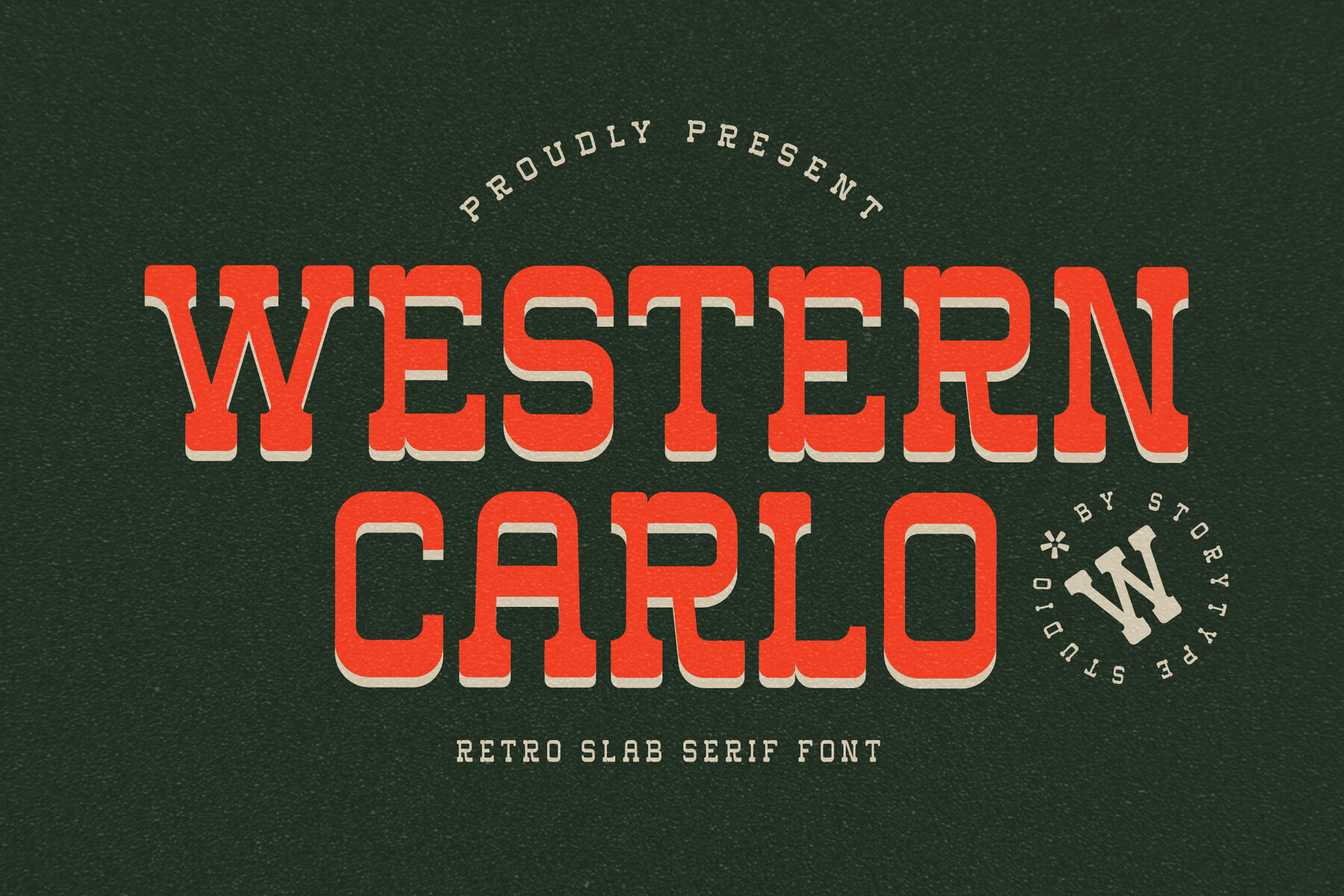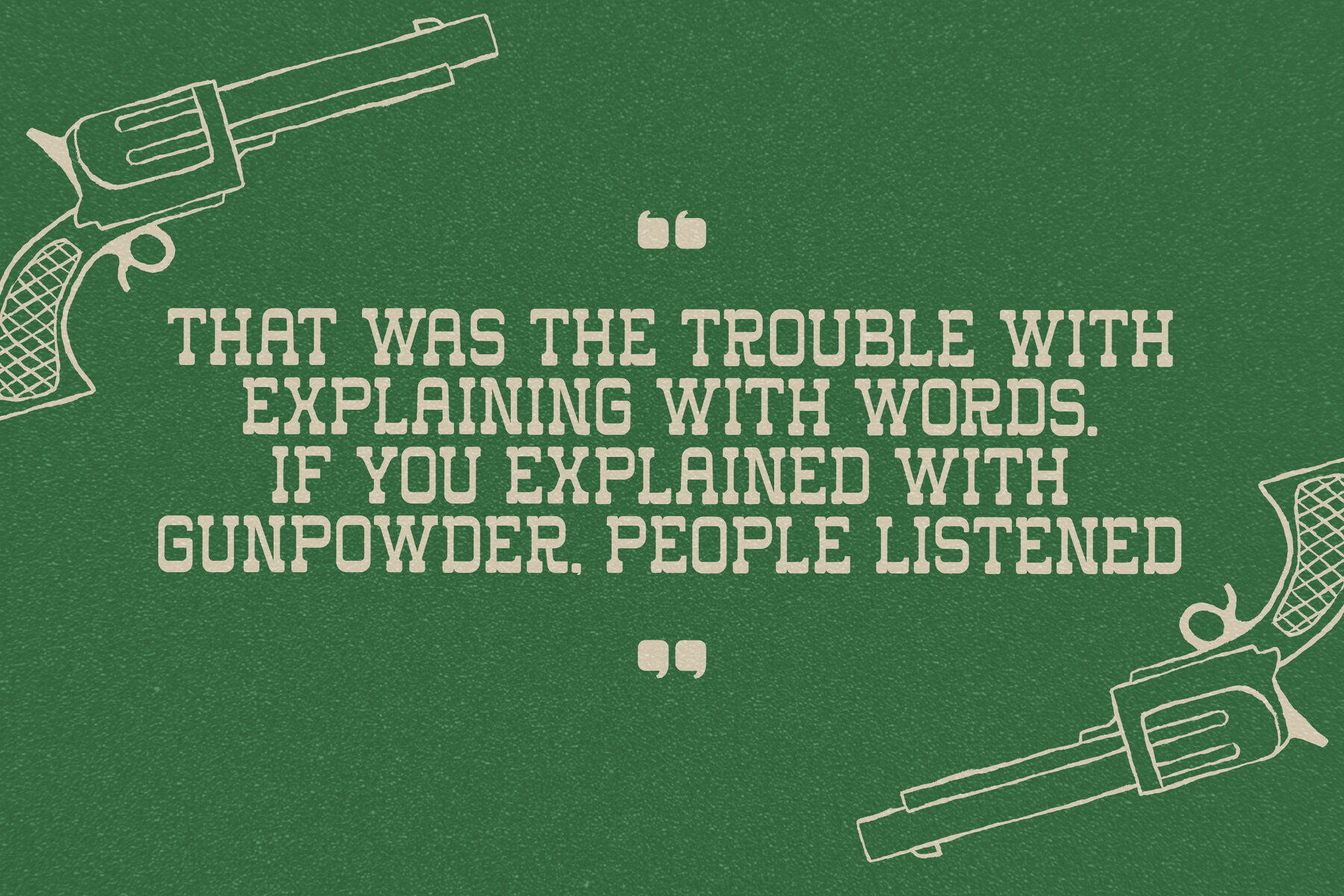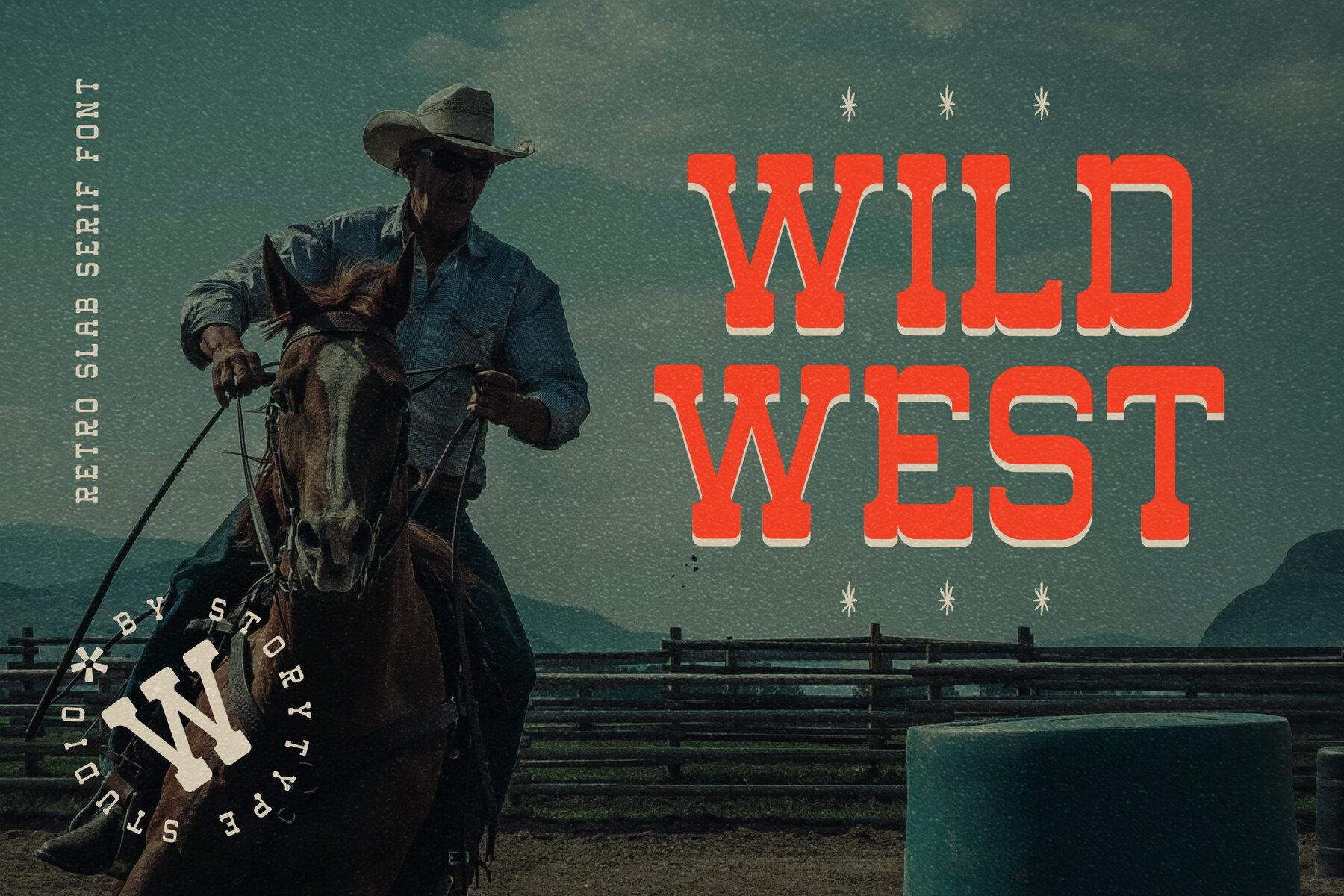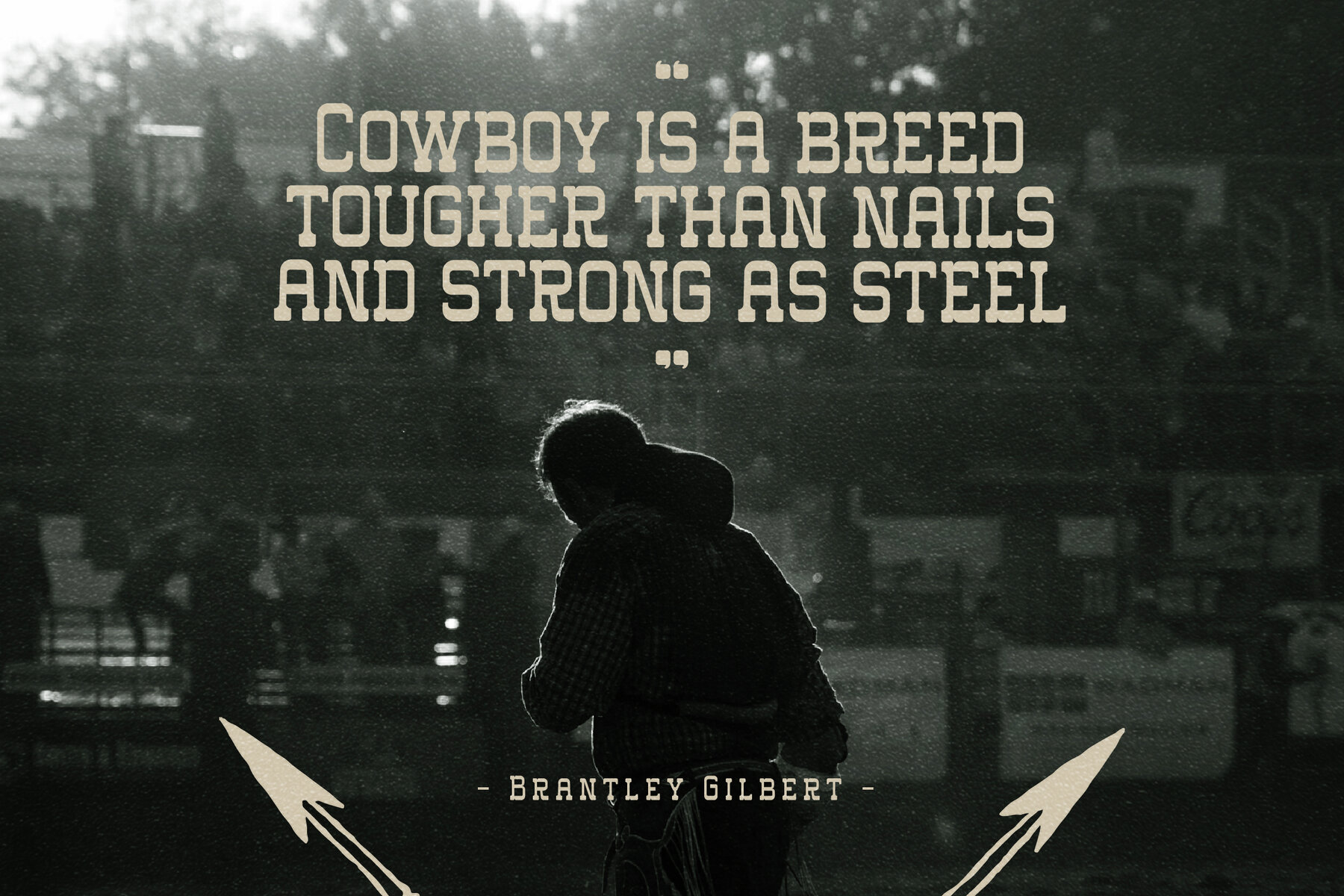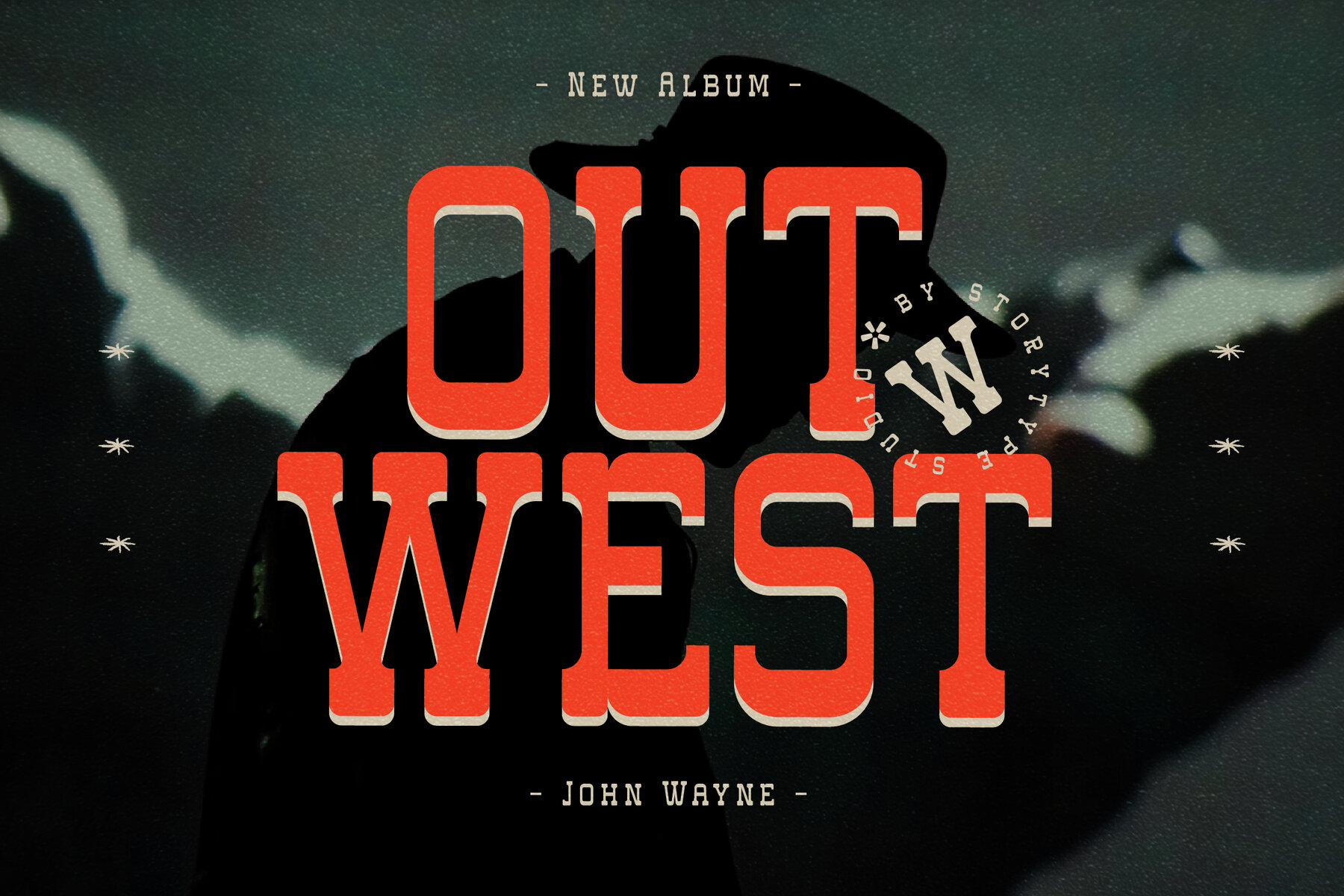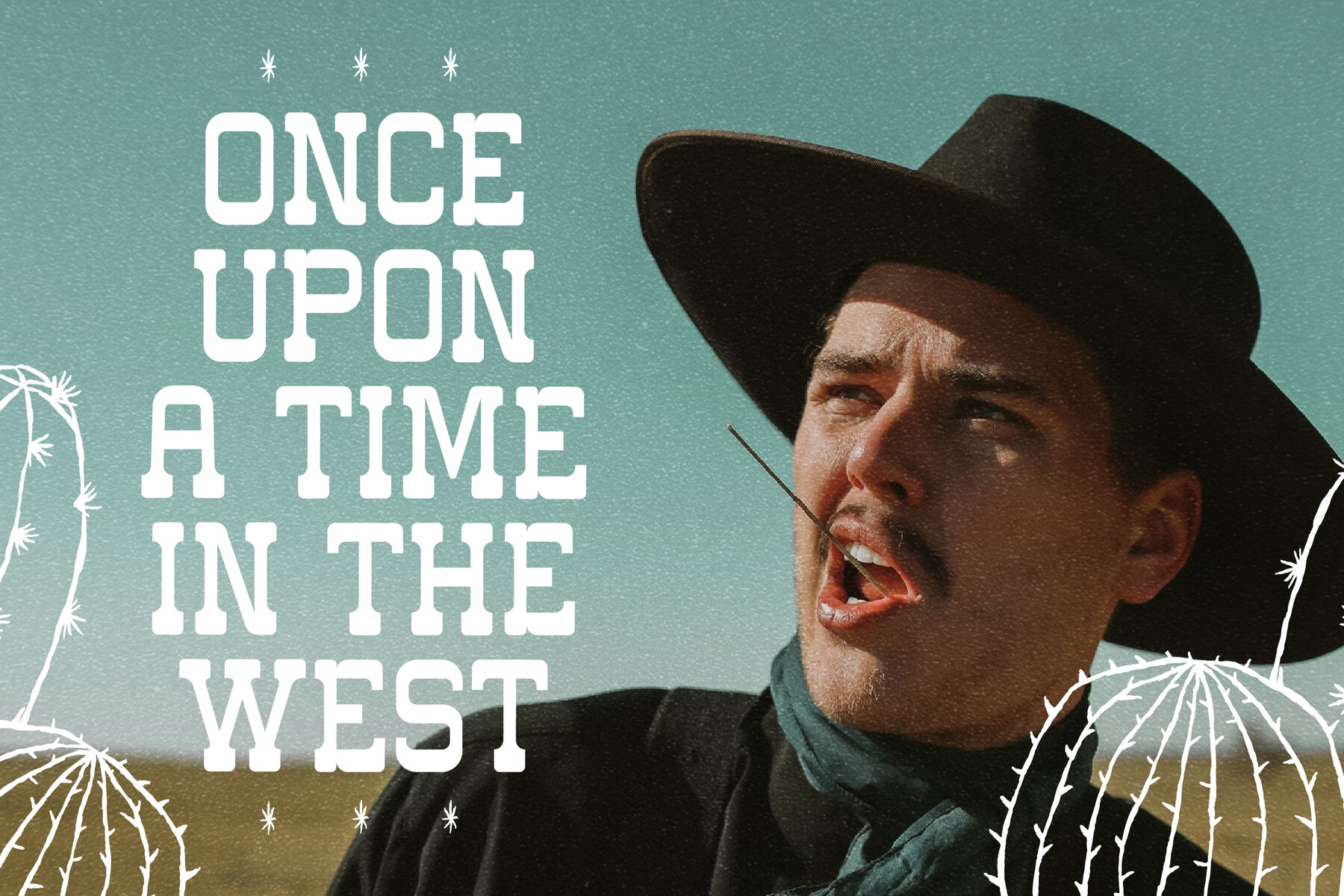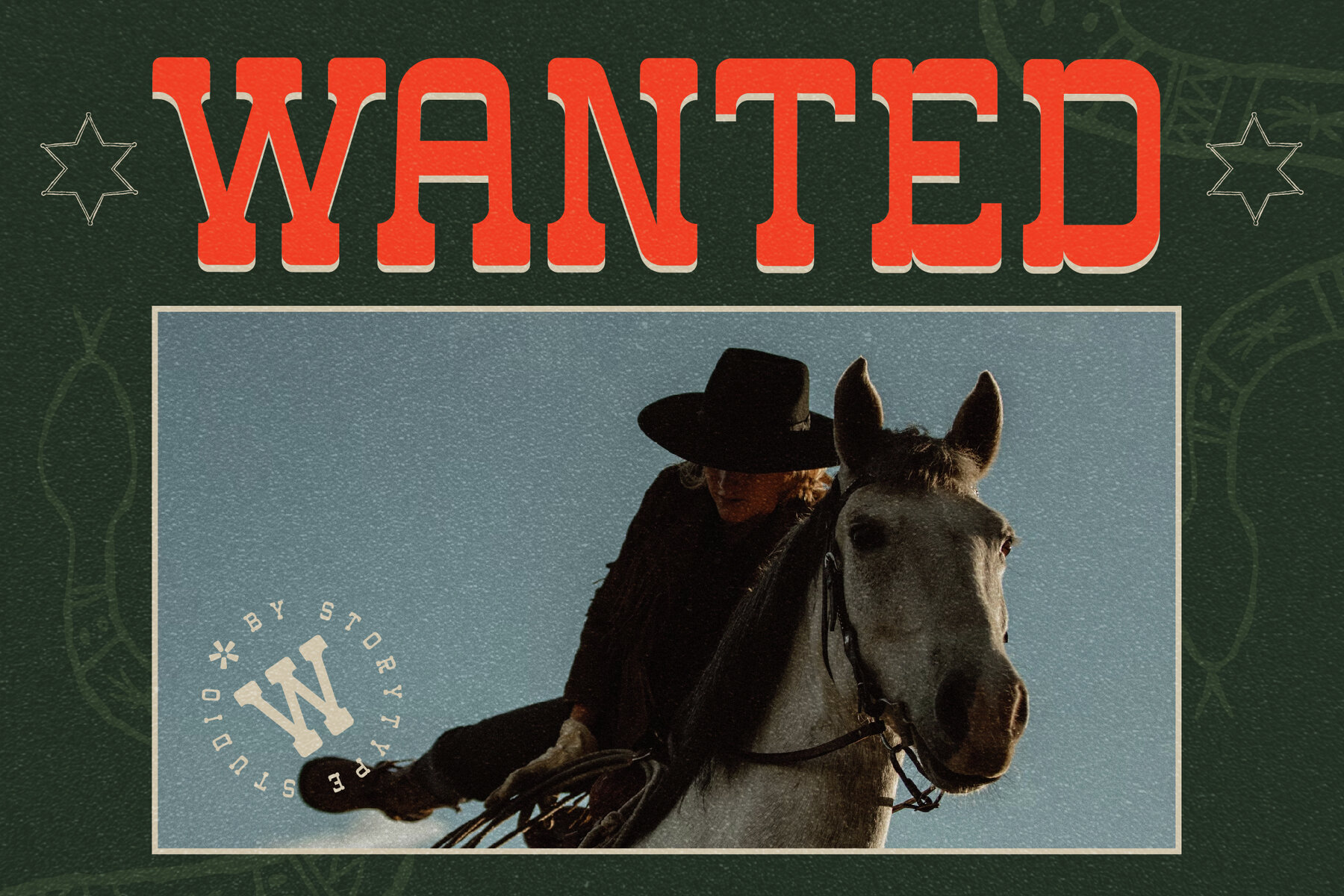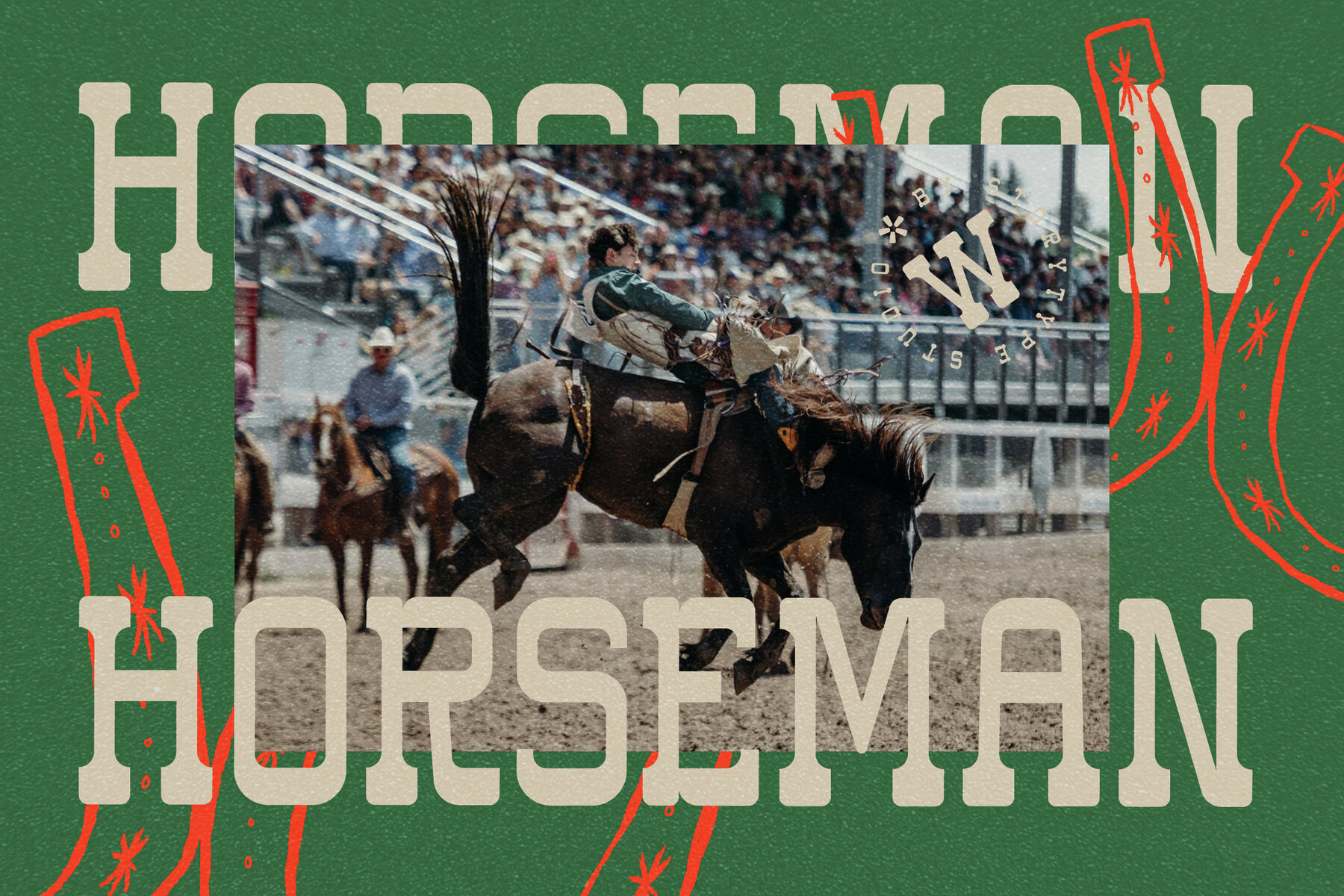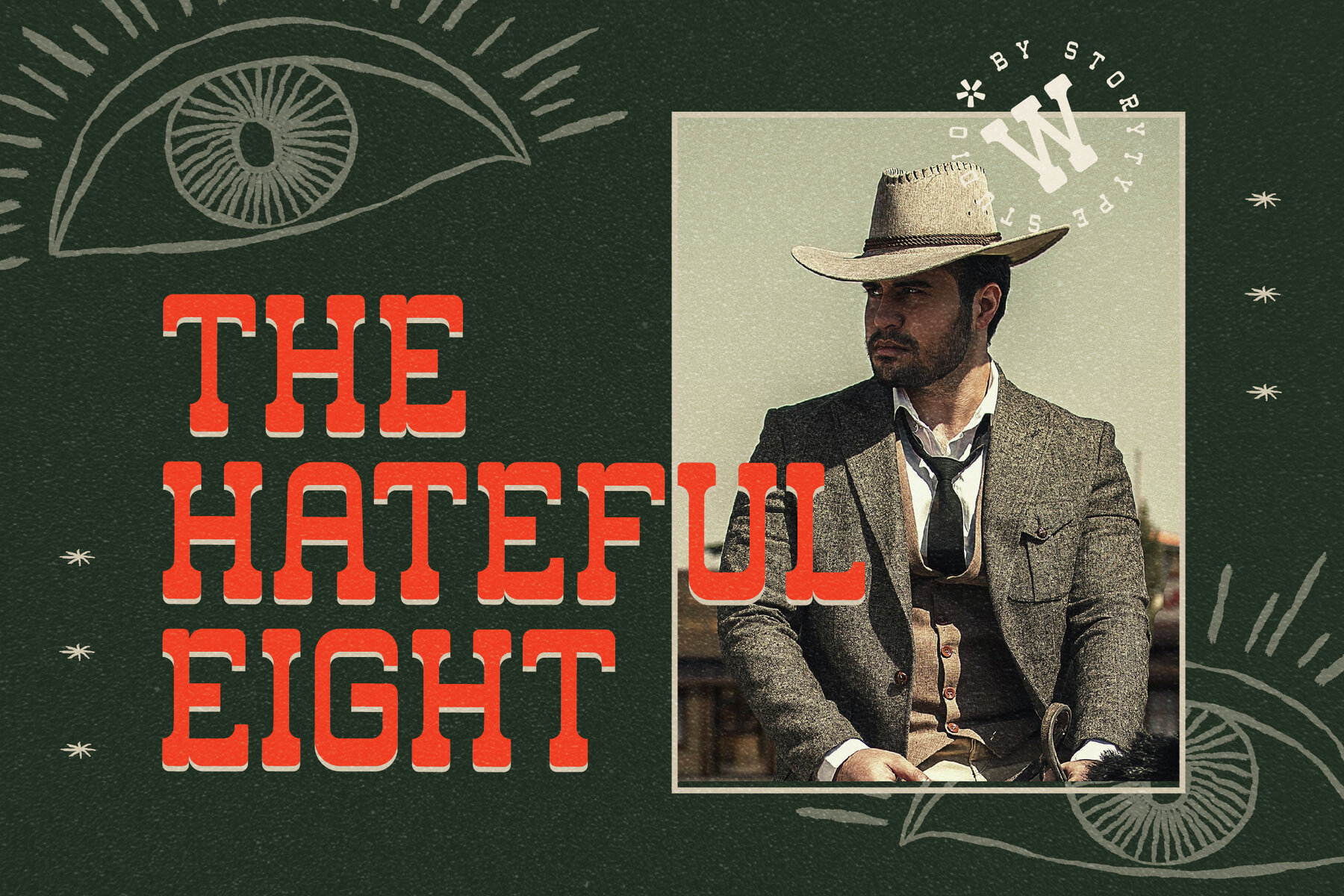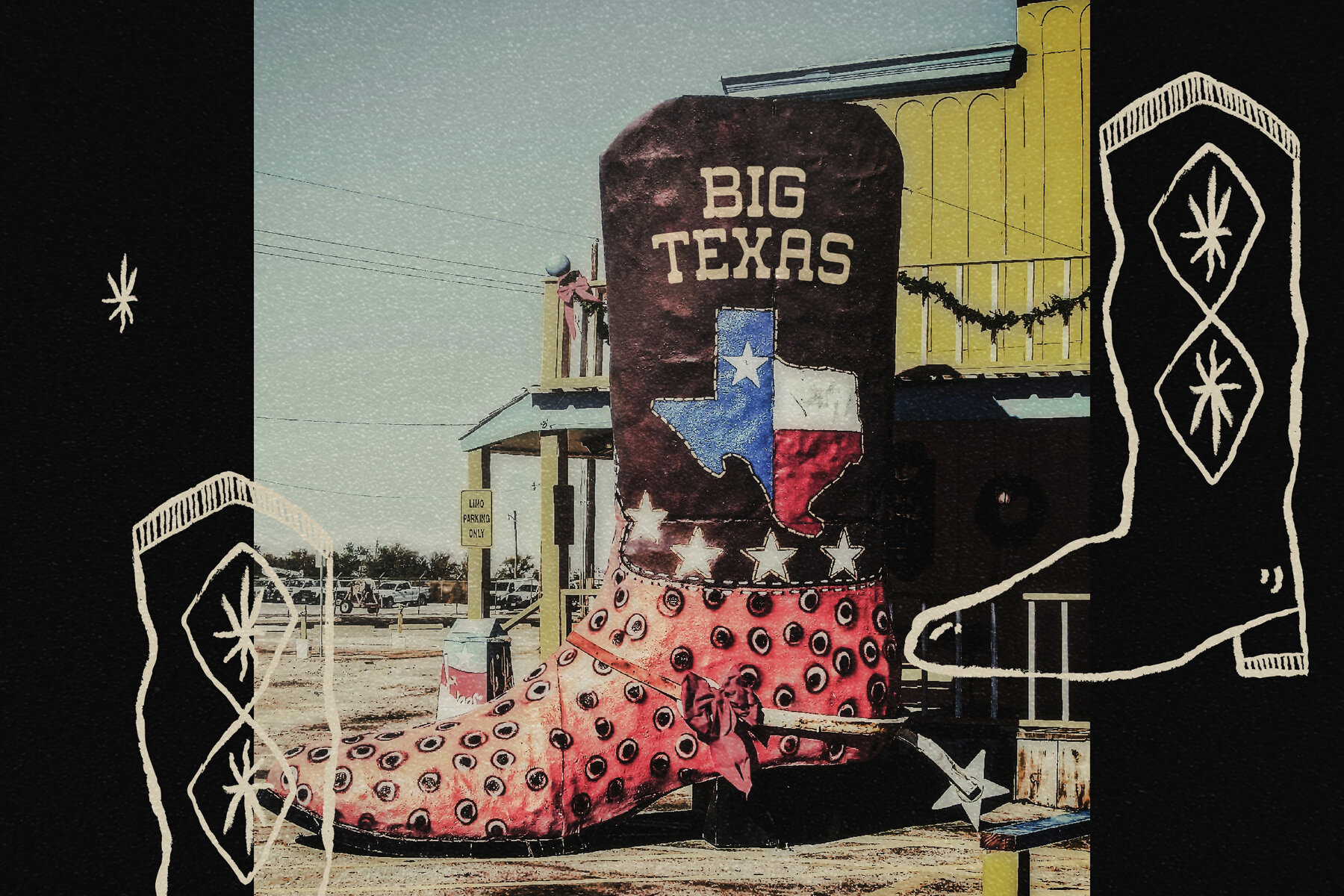
Western Carlo Font
Embrace the elegance and versatility of Western Carlo, a modern yet classic serif typeface designed by Storytype Studio. With its unique style and contemporary flair, Western Carlo is the perfect choice for creating luxurious logos, striking book or movie titles, sophisticated fashion brands, and captivating magazine layouts. This typeface seamlessly adapts to diverse design needs, making it ideal for clothing lines, expressive lettering, and memorable quotes.Introducing the Western Carlo Typeface
Features of the Western Carlo Typeface